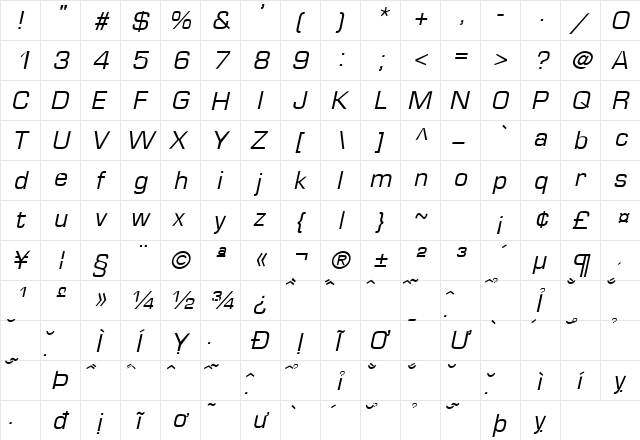
VNI-Eurasia Italic
Design Context for VNI-Eurasia Typeface
VNI-Eurasia is a composed and adaptable typeface that performs quietly and consistently across a wide range of design contexts. The dynamic lean of this cut emphasises speed and emphasis in any layout.
Pro Tip: Try VNI-Eurasia for annotation and caption copy alongside an upright companion — the contrast in angle creates a dynamic but ordered typographic system.